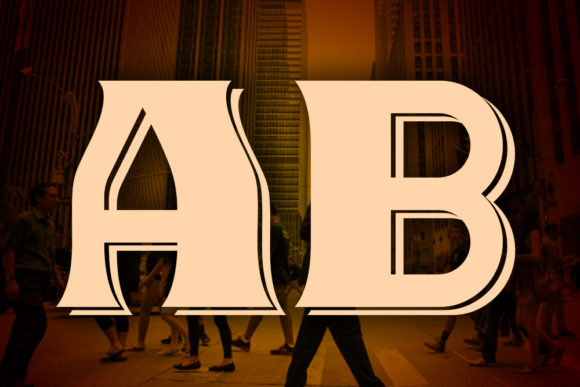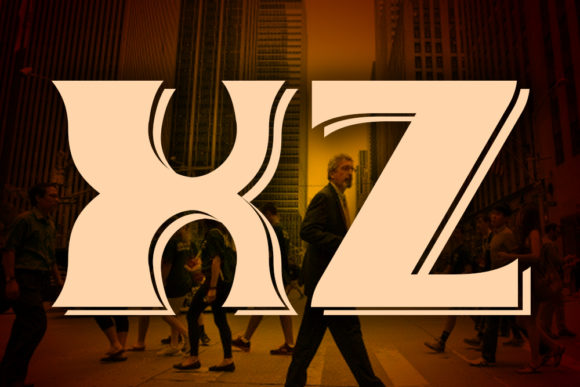
Introduction to New Yorkers Font
The New Yorkers is a stunning retro font.
The New Yorkers is a stunning retro font. It is great for posters, headlines, banners and much more
Key Features of New Yorkers Font